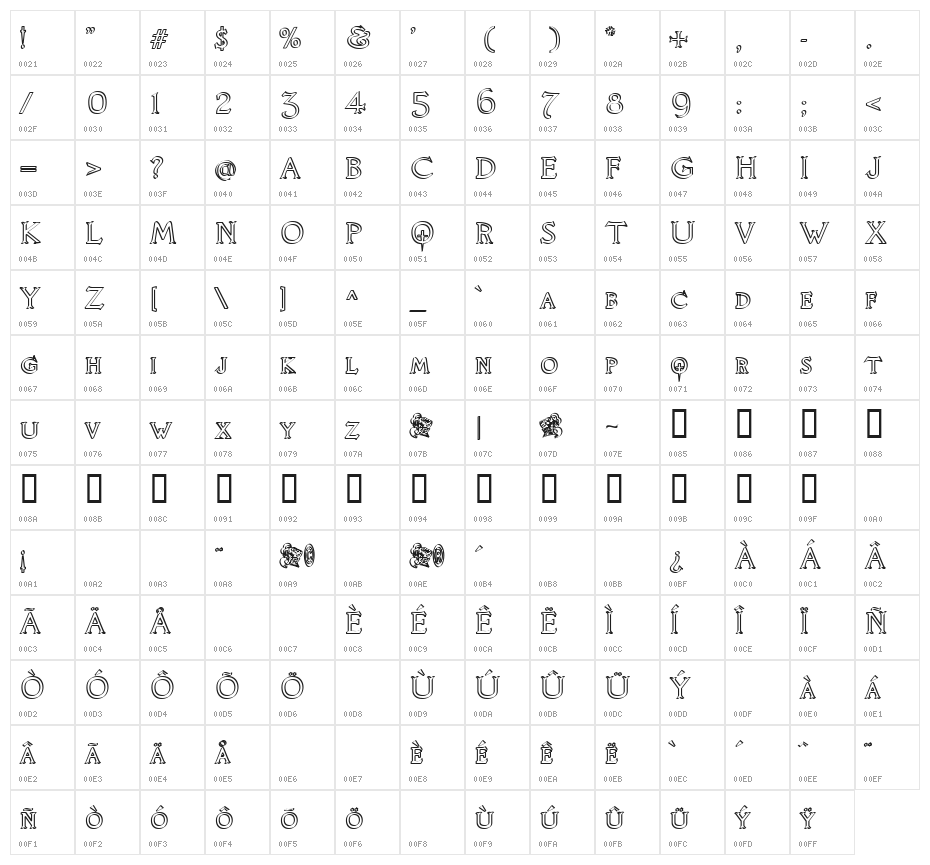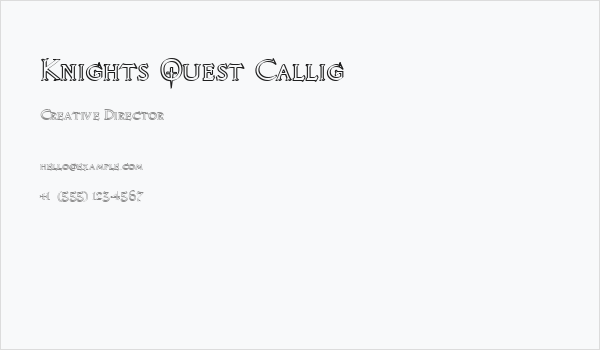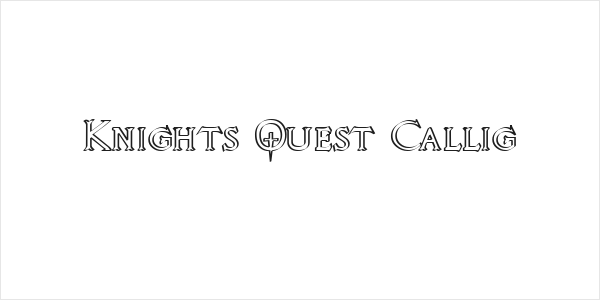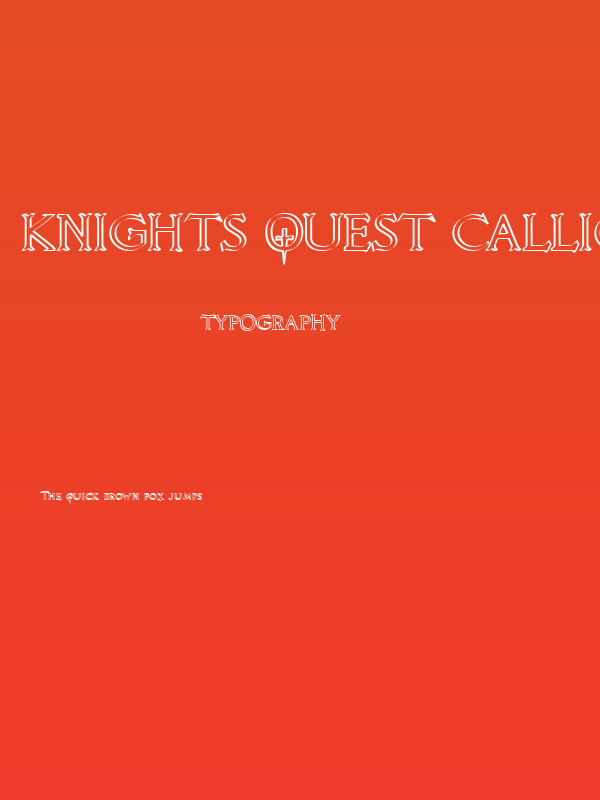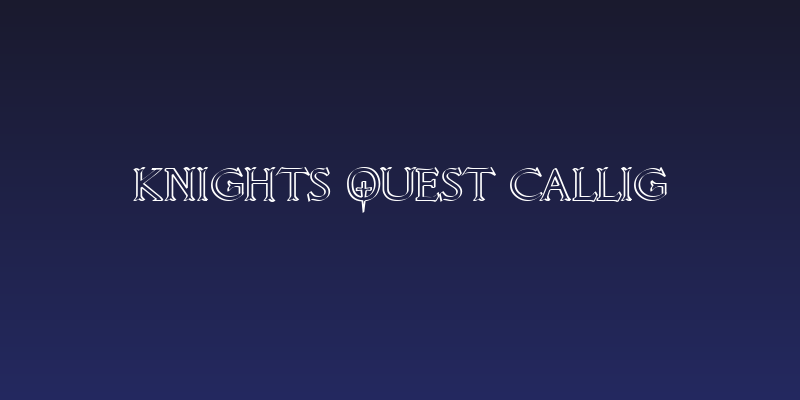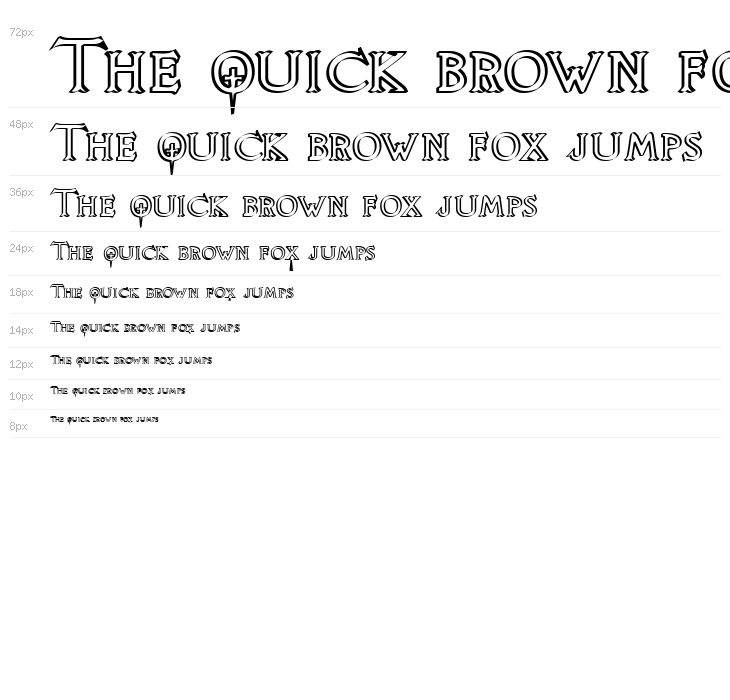
Knights Quest Callig Font
Knights Quest Callig Description
This font features a bold and decorative style with medieval influences, characterized by sharp serifs and intricate detailing. Each letter is designed with a unique flair, incorporating elements reminiscent of ancient scripts and heraldic symbols. The uppercase letters are particularly striking, with embellishments that suggest a sense of grandeur and tradition. The numerals and special characters maintain this ornate style, ensuring consistency across all glyphs. The font's overall appearance is both commanding and elegant, making it suitable for projects that require a touch of historical or fantasy-themed aesthetics.
| Overall Style | Medieval, Decorative |
| Proposed Projects | Ideal for fantasy-themed designs, medieval event posters, book covers, and video game titles. |